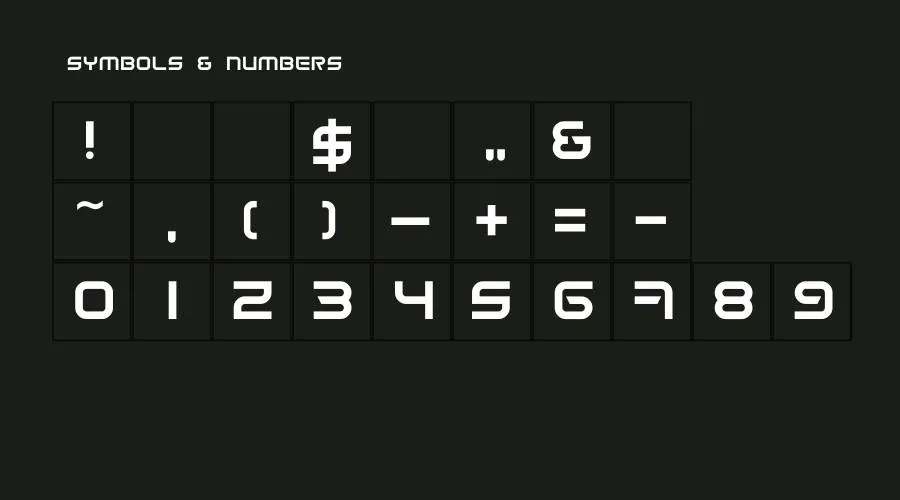
Space Frigate Font
About Space Frigate Font
Space Frigate Font is designed by dustBUST it belongs to the techno typeface category. This font family comes with all the exclamation points and hyphen letters needed to create a beautiful design when used with the other font. It is also obtainable in both uppercase and lowercase characters.
Users can make, such banners, and post them on social media designs. The best uses for this contemporary and fashionable typeface are various formal contexts like glossy magazines, printing jobs, and newspapers.
You may create stunning themes for your websites by using sophisticated graphic layouts. Both printed and digital marketing is appropriate. It can be utilized for a variety of display applications. It can be applied to a variety of headings and titles.
Name Space Frigate Font
Designer dustBUST
Style Techno
• Space Frigate Regular
• Space Frigate Italic
Is Space Frigate Typeface great to use?
This typeface is perfect for any venture such as advertisements, sites, social media posts, brands, cards, and much more.
What kind of generator tool is Space Frigate Font?
For the fast creation of realistic plans, it is an exceptionally idealized tool. You can make numerous plans effectively with this style.
Does Space Frigate Font have great readability?
The Space Frigate Typeface has incredible significance. It may be a remarkably flexible text style that can be read from the distance.